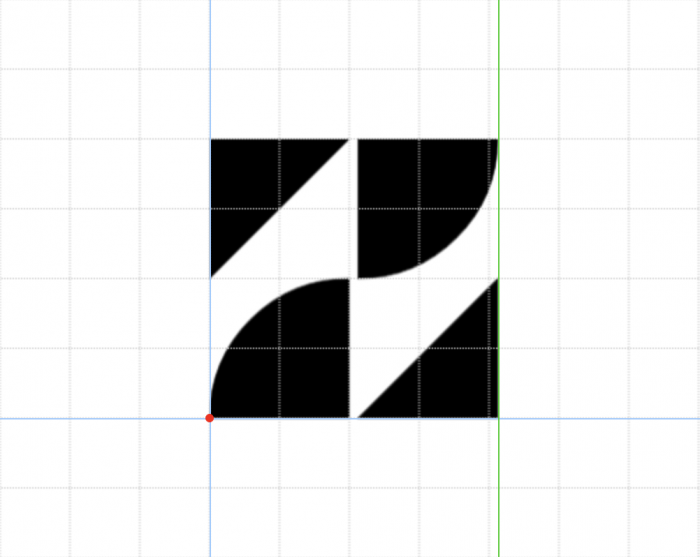
....I Know the Reference,Futura!
Interesting 70s feeling (some glyphs more than others). Have you thought about completing the font? What do you think of this "Z"?
@JeycoMonge yep! You got it!
That's an interesting Z, I think I'll ad it! And yes, I'll probably complete the font soon.
Well, I added a lower case.
Yay! Is Great THX! (See on Fonts in Use)